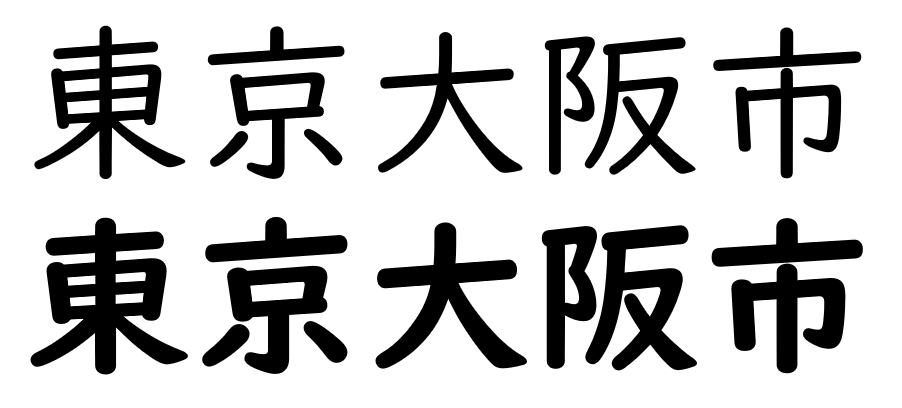
The UD Digi Kyokasho font family is a Windows font that is primarily intended to support the Japanese language for the education market. It does support characters used in English and other western European languages but was created primarily to support the Japanese language. If you want to use the UD Digi Kyokasho font family on a non-Japanese machine, please install the optional feature, "Japanese Supplemental Fonts".
“The design of the font adheres to the Japan’s Government requirements to eliminate discrimination against people with disabilities (effective since 2016). It also conforms to the educational curriculum guidelines. The font maintains the directionality of handwriting, and the shapes of tear drops and sweeps, by carefully controlling the weight of the strokes. Research shows that the font increases readability of textbook content.” — Morisawa Inc.